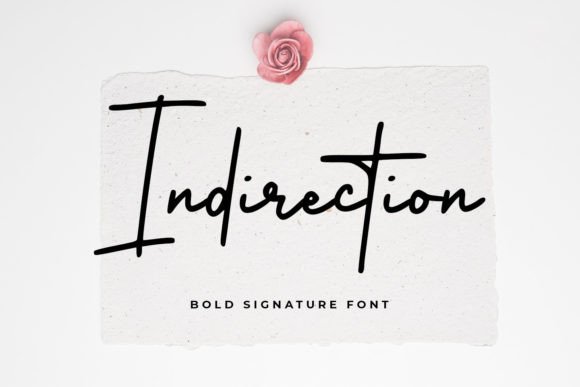
Journey into the world of Indirection, a captivating script font that dances across the digital canvas with grace and elegance. Its bold strokes and playful curves evoke a sense of artistry and creativity, making it the perfect choice for those seeking to make a statement with their designs.
Indirection is a symphony of sophistication and versatility. Its flowing lines lend themselves effortlessly to branding projects, adding a touch of exclusivity to logos and packaging. The font's innate charm shines through in quotes and social media posts, captivating audiences with its unique style. Unleash your creativity with Indirection and craft stunning t-shirt designs and tote bags that stand out from the crowd.
Indirection is not just a font; it's an experience. Its ability to transform ordinary words into works of art makes it a favorite among card designers seeking to create unforgettable invitations, greeting cards, and business cards. Its natural flow adds a touch of elegance to banners and posters, grabbing attention and leaving a lasting impression.
Embrace the allure of Indirection and embark on a creative adventure where imagination knows no bounds. Its versatility knows no limits, making it an indispensable tool for designers of all levels. Whether you're a seasoned professional or just starting out, Indirection will elevate your designs to new heights, captivating audiences and leaving them in awe.
Indirection is more than just a font; it's an expression of your individuality, a reflection of your creative spirit. Its bold strokes and playful curves invite you to explore the boundaries of design, to create something truly unique and memorable. Let Indirection be your guide as you embark on this artistic journey, leaving an indelible mark on the world of design.